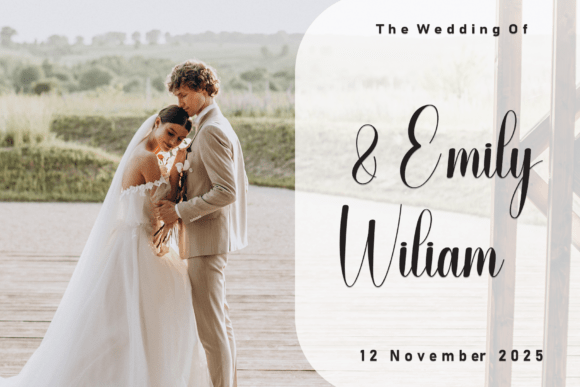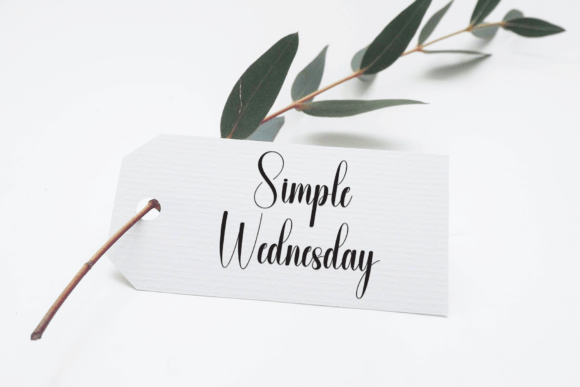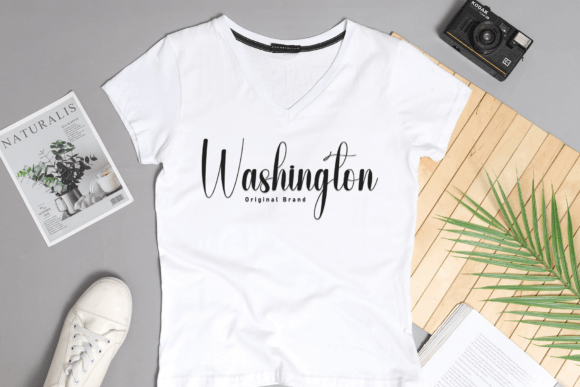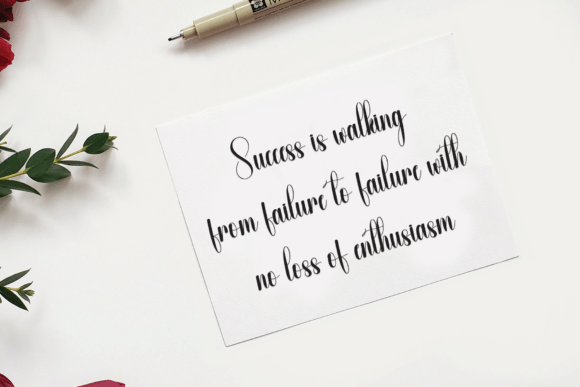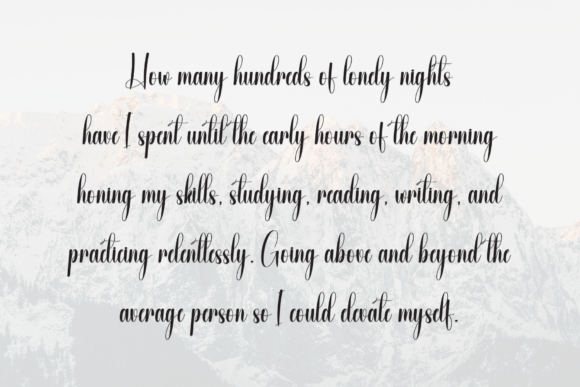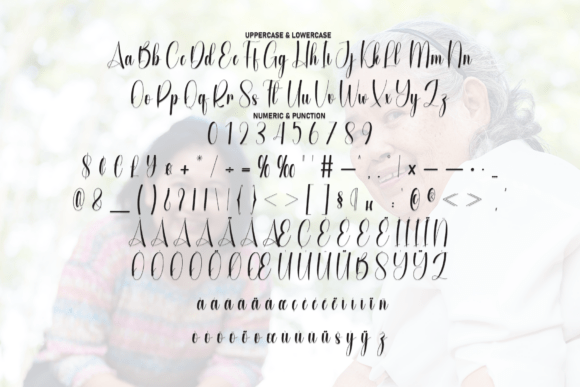
Introducing Grandma Font: Elevate Your Designs with Artistic Flair and Contemporary Elegance
In the world of typography, few fonts manage to strike a balance between artistic expression and modern sophistication. Grandma Font is one such exceptional typeface that embodies the perfect blend of fluid brush strokes, dynamic curves, and expressive letterforms. This stylish script font is designed to bring a touch of hand-painted calligraphy to your designs, infused with a contemporary twist that sets it apart from traditional fonts.
The Essence of Grandma Font
Grandma Font is more than just a typeface; it’s an experience. Its fluid brush strokes give each letterform a sense of movement and energy, as if they were painted by hand with precision and care. The dynamic curves and expressive letters add a level of sophistication and elegance, making it an ideal choice for designers looking to add a creative and sophisticated touch to their work.
One of the standout features of Grandma Font is its versatility. Whether you’re working on a logo, invitation, packaging, or social media graphics, this font adapts seamlessly to any design. Its natural flow and vibrant character make it perfect for a wide range of applications, from elegant wedding invitations to bold brand logos.
Applications of Grandma Font
- Logos: Create a lasting impression with a unique and memorable logo that captures the essence of your brand. Grandma Font’s distinctive style ensures that your logo stands out from the crowd.
- Invitations: Add a touch of elegance and sophistication to your event invitations. Whether it’s a wedding, birthday, or corporate event, Grandma Font sets the tone for a memorable occasion.
- Packaging: Elevate your product packaging with a font that exudes quality and style. Grandma Font can help you create eye-catching packaging that reflects your brand’s personality.
- Social Media Graphics: Make your social media posts stand out with Grandma Font. Its expressive letterforms and fluid brush strokes add a creative flair to any graphic, making it perfect for engaging your audience.
Why Choose Grandma Font?
With so many fonts available, why choose Grandma Font? The answer lies in its unique blend of artistic flair and contemporary elegance. This font is not just about aesthetics; it’s about making a statement. Here are a few reasons why Grandma Font should be your go-to choice:
- Unique Style: Grandma Font offers a distinctive style that sets it apart from more traditional fonts. Its hand-painted feel with a modern twist gives your designs a unique edge.
- High Versatility: Whether you’re working on digital or print projects, Grandma Font adapts well to various mediums, ensuring consistency across your designs.
- Easy to Read: Despite its artistic nature, Grandma Font remains highly legible, making it suitable for both headlines and body text.
- Time-Saving: With Grandma Font, you can achieve professional-looking results without spending hours on custom lettering. It’s the perfect solution for designers looking to save time without compromising on style.
Tips for Using Grandma Font Effectively
To get the most out of Grandma Font, consider the following tips:
- Pair with Simple Fonts: For optimal readability, pair Grandma Font with simpler fonts for body text or secondary headings. This contrast ensures that your message is clear and visually appealing.
- Experiment with Colors: Grandma Font looks stunning in a variety of colors. Experiment with different hues to find the perfect match for your design.
- Play with Sizes: Don’t be afraid to vary the font size to create visual hierarchy and emphasis in your designs.
- Emphasize Key Elements: Use Grandma Font to highlight important information or calls to action, making it easier to guide your audience’s attention.
Grandma Font is a game-changer for designers and crafters looking to infuse their work with artistic flair and contemporary elegance. Its unique blend of fluid brush strokes, dynamic curves, and expressive letterforms makes it an invaluable addition to any design toolkit. Whether you’re creating logos, invitations, packaging, or social media graphics, Grandma Font delivers both visual impact and versatility. Embrace the creative possibilities with Grandma Font and elevate your designs to new heights of sophistication and style.